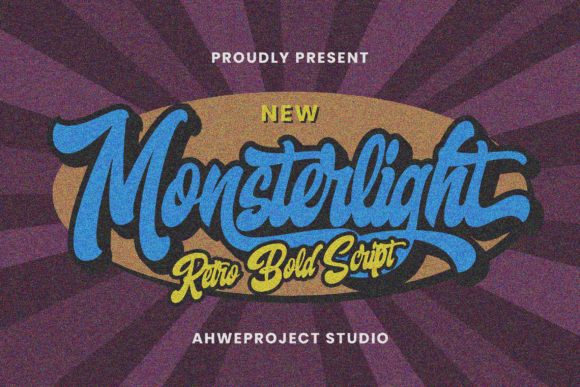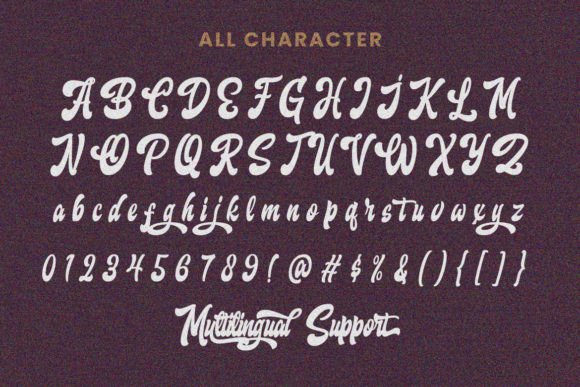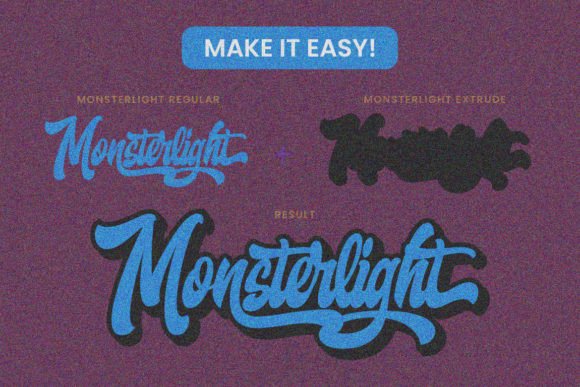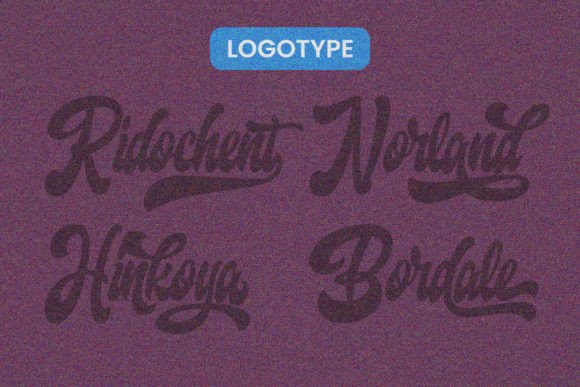
Monsterlight Font: Bold Retro Script for Groovy Logo Design
About the Monsterlight Font
Get ready to be inspired by Monsterlight Font, a fresh and dynamic typeface for modern creators. Monsterlight is a retro, bold script font that will bring you back to the 60s – 80s. This typeface has an extruded version, so you can create a retro effect with ease. This typeface is perfect for logos, invitations, labels, magazines, books, greeting/wedding cards, packaging, fashion, make-up, stationery, novels, labels, or other advertising purposes.
Monsterlight’s bold, retro style excels in headlines, short text blocks, and branding applications where a strong vintage aesthetic is desired. It’s ideal for packaging, posters, and logos needing a touch of playful rebellion. However, its heavy weight and stylistic flourishes make it unsuitable for body text or UI elements requiring high readability. Avoid using it for long paragraphs or situations demanding clear, concise communication.
Pairing Monsterlight effectively requires considering its inherent boldness. A clean sans-serif like Futura or a geometric sans-serif such as Helvetica Neue would provide excellent contrast and readability when used for supporting text. For a more vintage feel, consider a complementary serif typeface such as Garamond or a slightly more modern serif like Playfair Display.
Its core personality is best described as bold, playful, and retro. Brands targeting a younger audience with a nostalgic sensibility, or those in the fashion, music, or entertainment industries, would find Monsterlight particularly effective in establishing a distinctive brand identity.